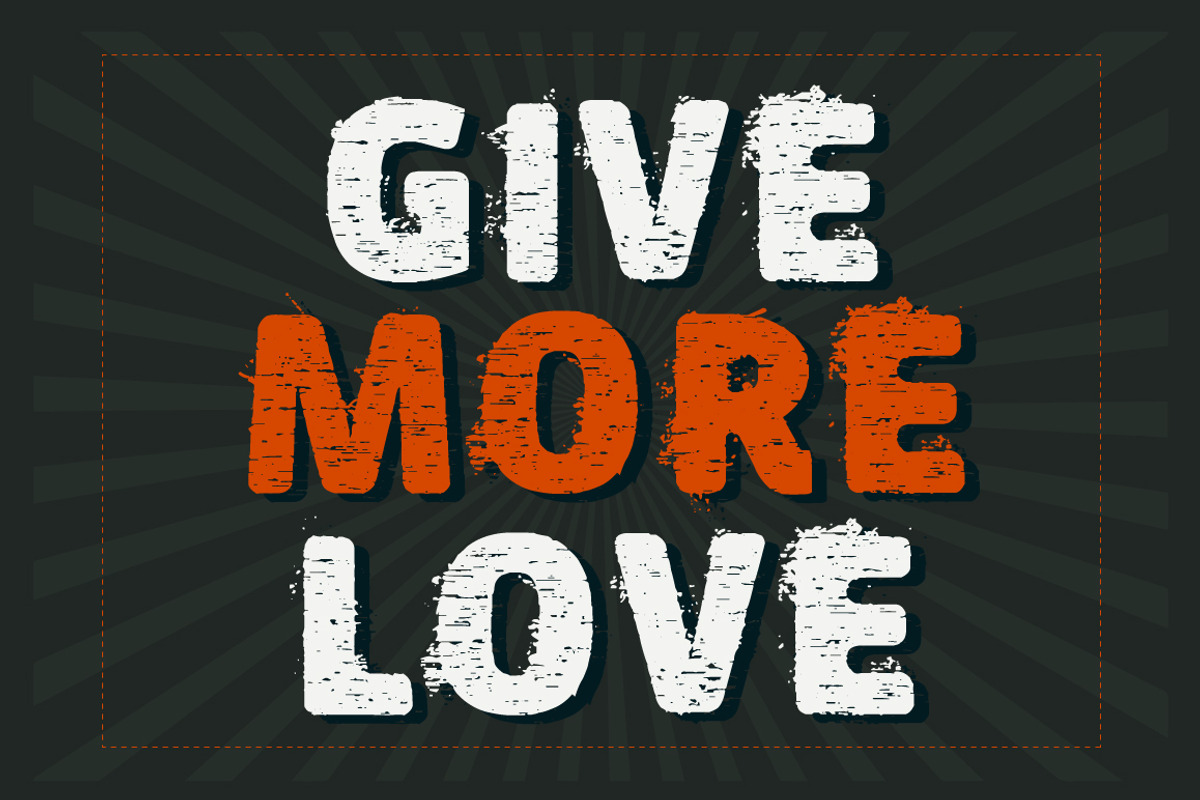
Sujinha Font By Vtks
Sujinha Font By Vtks by Vtks, a Font by vtks design is a font selected for branding, posters, packaging, typography.
Why Sujinha Font By Vtks is worth a look
Sujinha Font By Vtks by Vtks, a Font by vtks design fits naturally into Branding, posters, packaging, typography.